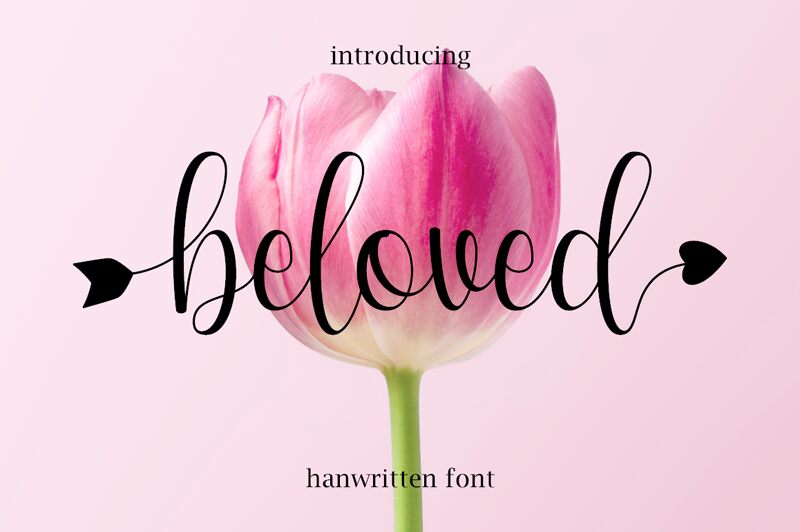
Beloved
Beloved, crafted by Hardiboy Design, is a handwritten font that exudes charm and personality. Its fluid strokes and elegant loops evoke the warmth of personal correspondence, making it a delightful choice for invitations, branding, and advertising where a touch of intimacy is desired. The font's playful yet sophisticated style lends itself to creative projects that require a bespoke feel.
In terms of use cases, Beloved shines in contexts that call for an organic, handcrafted aesthetic. Whether it's the centerpiece of a wedding suite or the friendly face of a café's logo, this font has the versatility to bring a human touch to digital designs while maintaining readability and character.